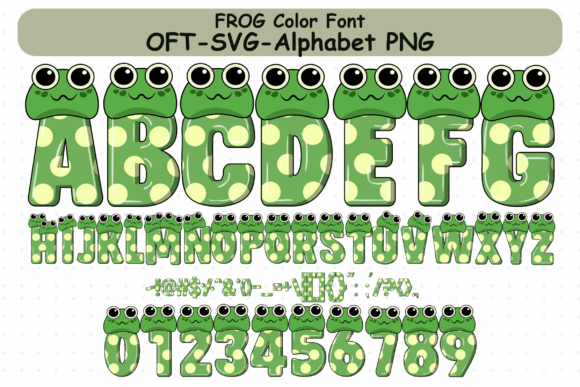
Presenting FROG Font: The Ultimate Whimsical Typeface for Designers and Crafters
Are you tired of using the same old fonts in your design projects? Do you want to add a touch of playfulness and whimsy to your creations? Look no further than the FROG Font, an enchanting typeface that’s sure to delight designers and crafters of all levels. In this article, we’ll dive into the world of FROG Font, exploring its features, benefits, and uses, as well as provide tips on how to get the most out of this amazing font.
What is FROG Font?
FROG Font is a unique and captivating typeface that’s inspired by the playful and carefree spirit of frogs. With its whimsical design, this font is perfect for adding a dash of fun to a variety of design projects, from children’s literature to posters, invitations, and more. Whether you’re a designer, crafter, or DIY enthusiast, FROG Font is sure to bring a smile to your face and inspire your creativity.
Key Features of FROG Font
So, what makes FROG Font so special? Here are just a few of its key features:
- Whimsical design: FROG Font features a playful and imaginative design that’s sure to capture the attention of your audience.
Uses for FROG Font
So, what can you use FROG Font for? The possibilities are endless! Here are just a few ideas to get you started:
- Children’s literature: FROG Font is perfect for creating engaging and interactive children’s books, e-books, and educational materials.
- Posters and flyers: Add a touch of whimsy to your posters and flyers with FROG Font, making them stand out and grab attention.
- Invitations and party decor: Use FROG Font to create unique and playful invitations, party decorations, and favors that will delight kids and adults alike.
- Crafting and DIY projects: FROG Font is perfect for crafters and DIY enthusiasts who want to add a personal touch to their projects, from scrapbooking to card-making.
Tips for Using FROG Font
To get the most out of FROG Font, here are a few tips to keep in mind:
- Experiment with colors: Try pairing FROG Font with different colors and textures to create unique and eye-catching designs.
- Mix and match: Combine FROG Font with other fonts and design elements to create a truly one-of-a-kind look.
- Pay attention to spacing: Make sure to adjust the spacing and kerning of FROG Font to ensure it looks its best in your design project.